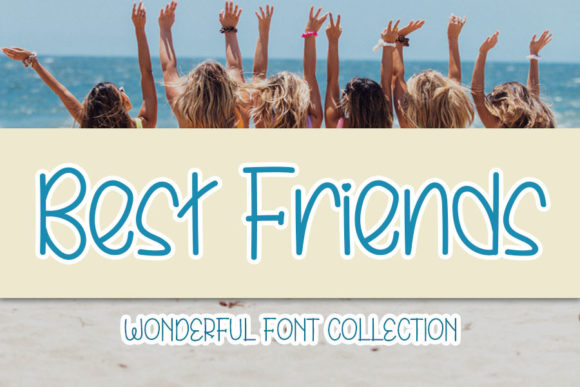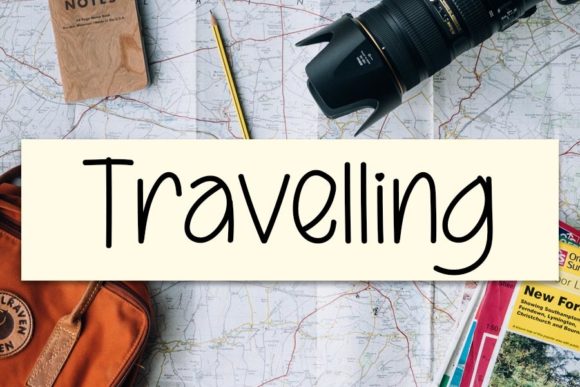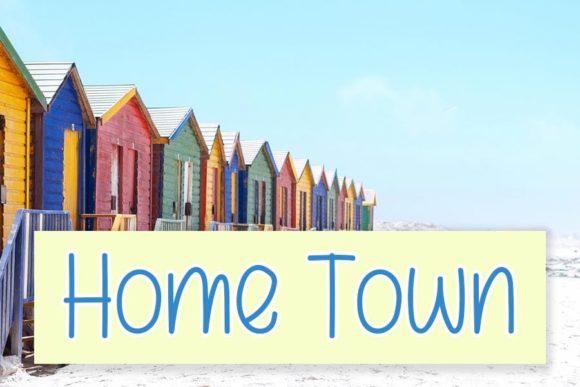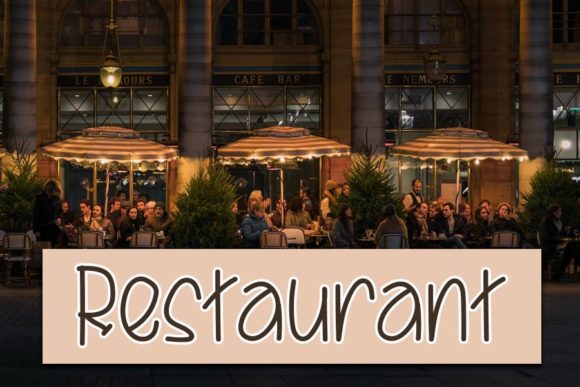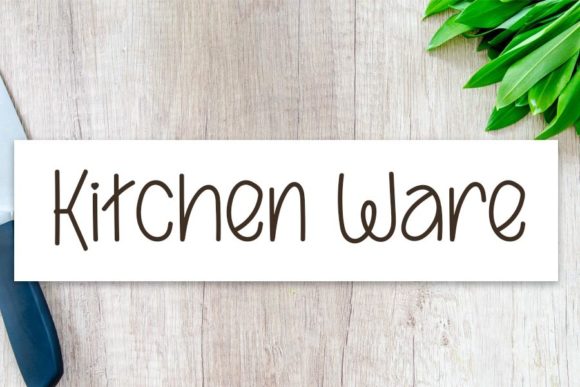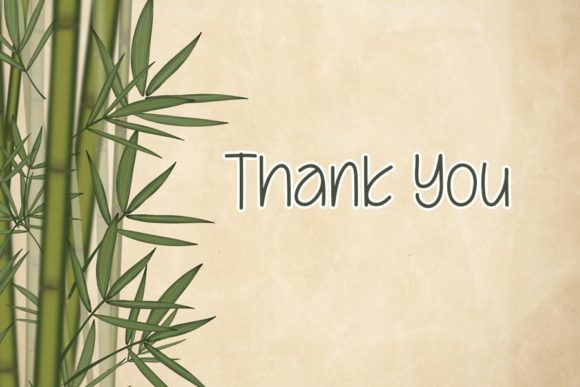
Best Friends Font
About Best Friends Font
Best Friends is a simple, round lettered and thin handwritten font. It is the best choice for creating eye catching logos, branding and quotes. Every letter has a unique and beautiful touch, which will make your design come alive!